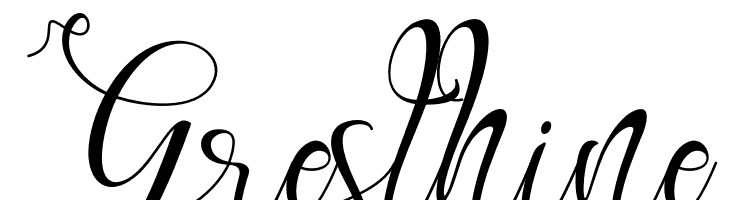
An elegant script font with intricate loops and decorative swashes.
An elegant script font with flowing, cursive letterforms and sophisticated flourishes.
An elegant script font with fluid, cursive strokes and refined flourishes.
Playful handwritten script font.